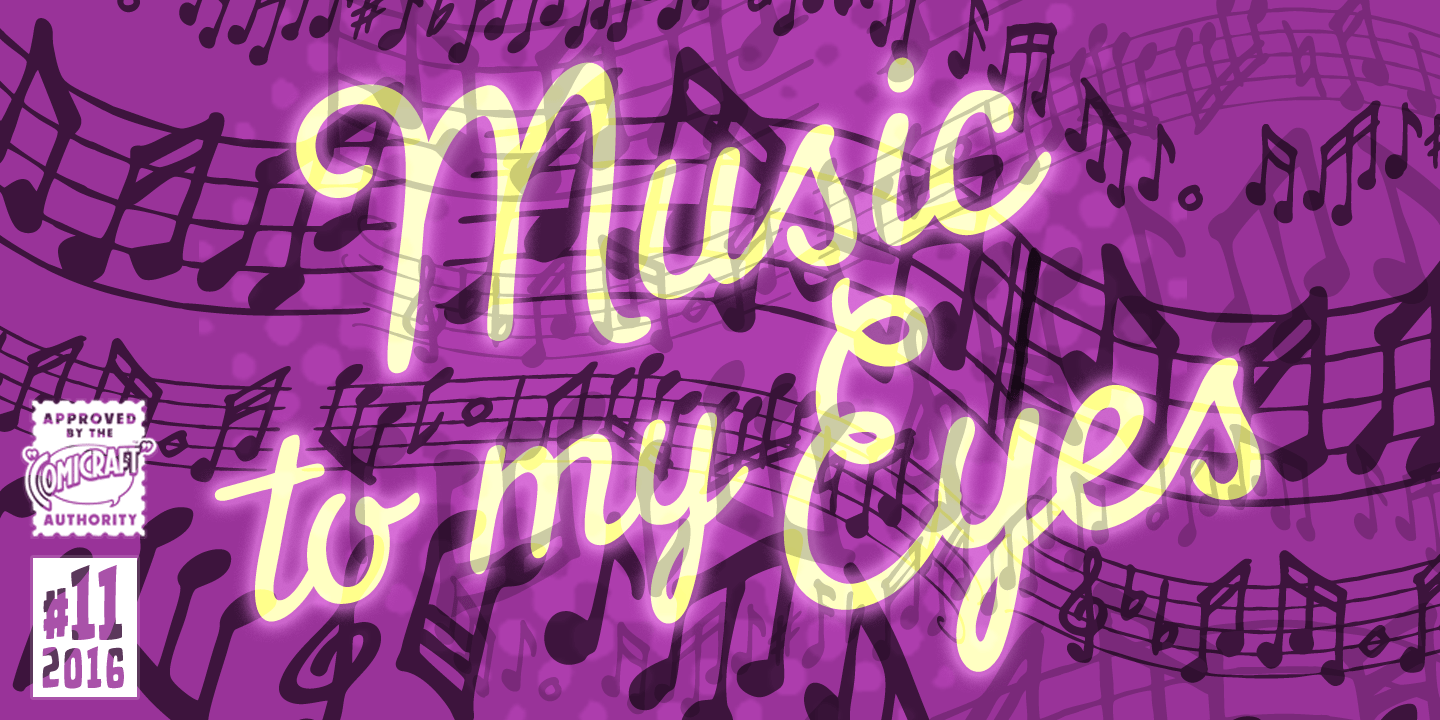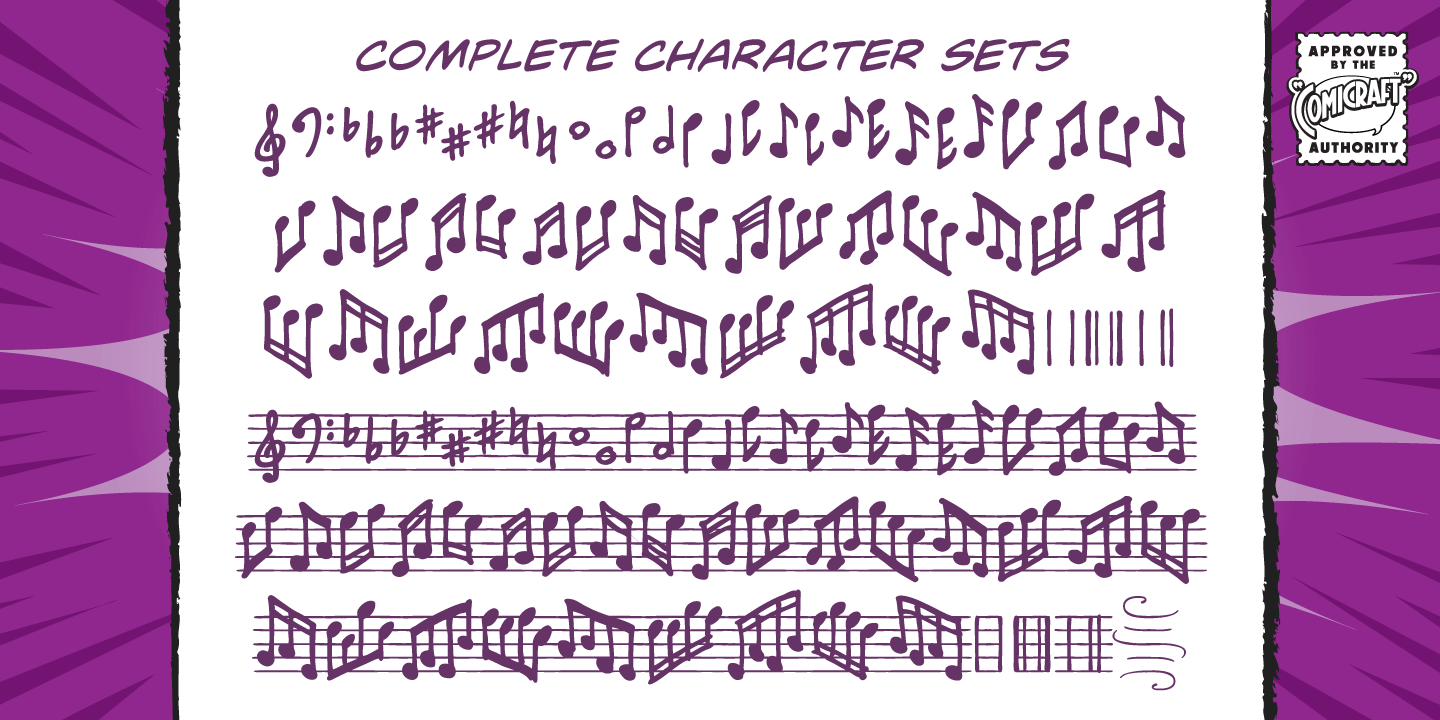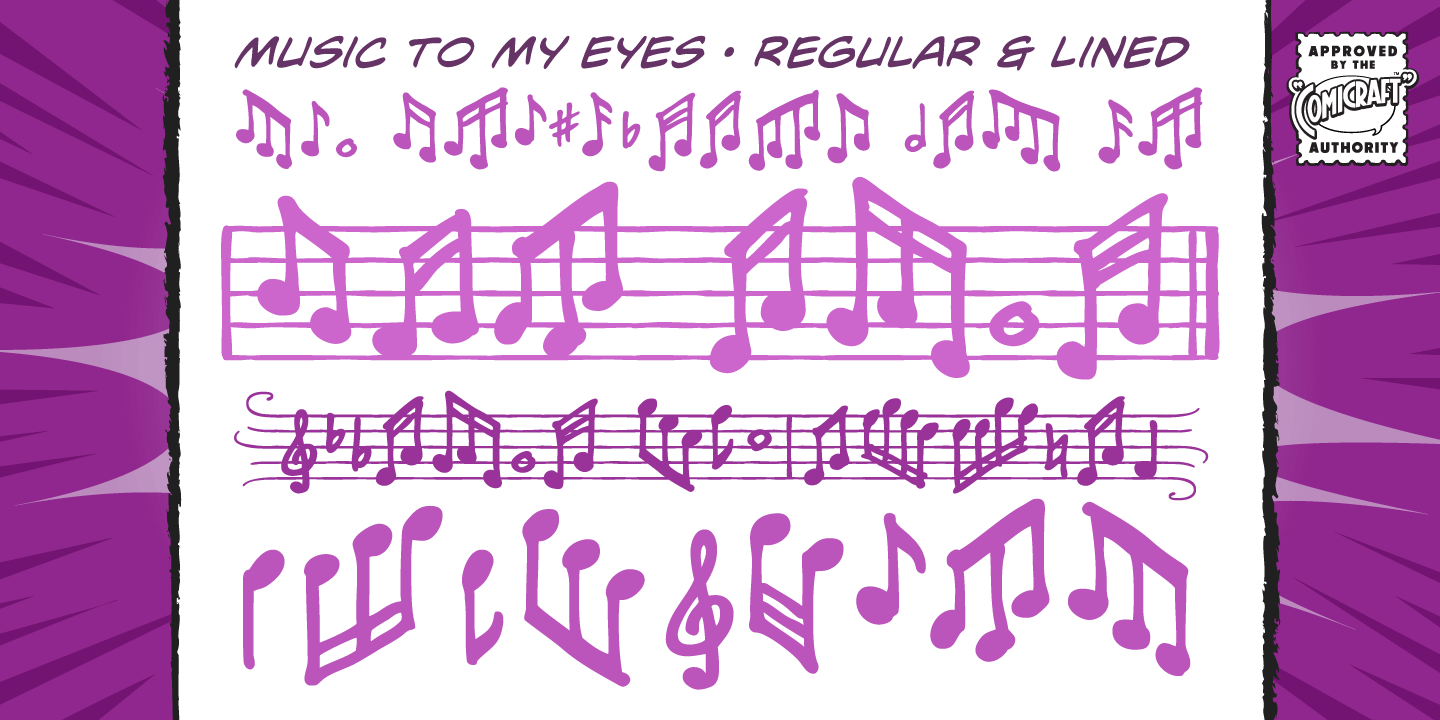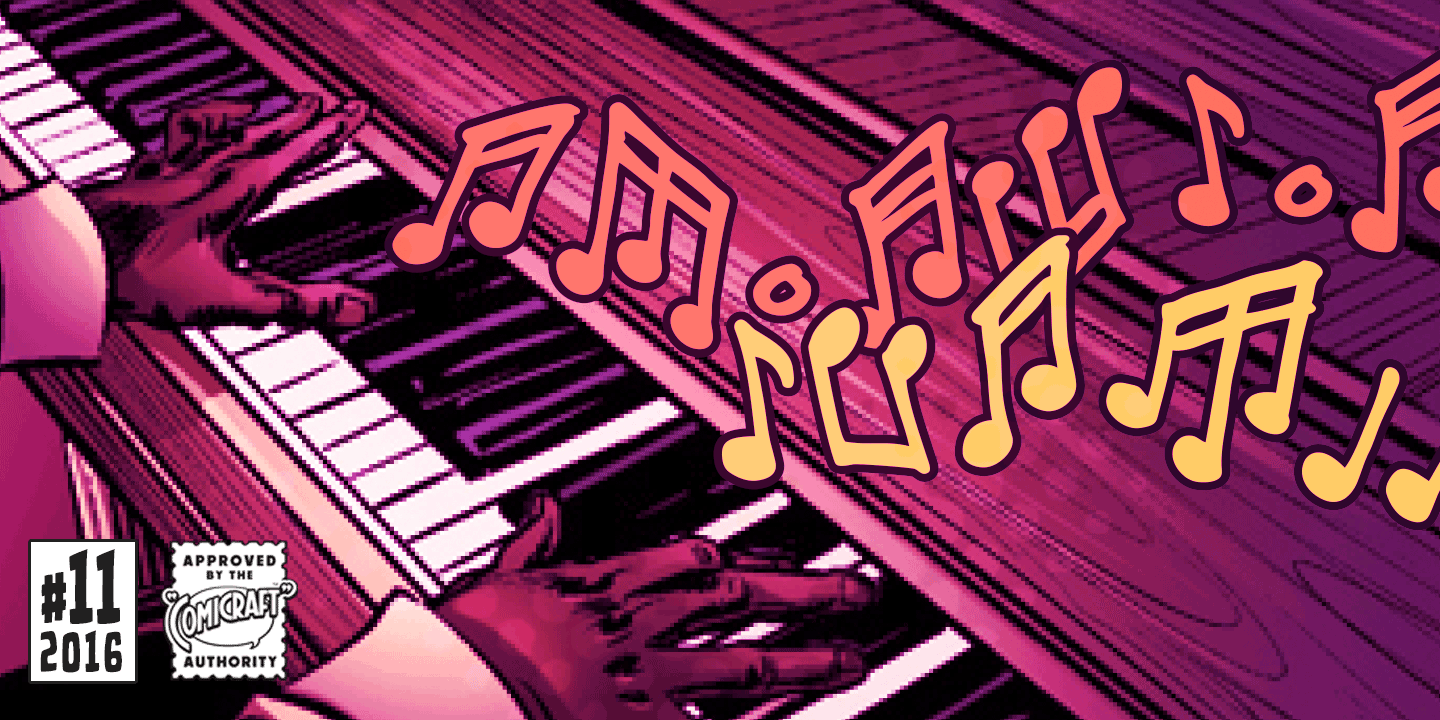
Music To My Eyes
Font Family by Comicraft Fonts
This singsong font is Chock Full o'Notes to help semibreviate your lettering with melodic minims, quarter notes and quavers! NOTE, however that we cannot take responsibility for any arrangement that my seem out of tune to the trained eye.